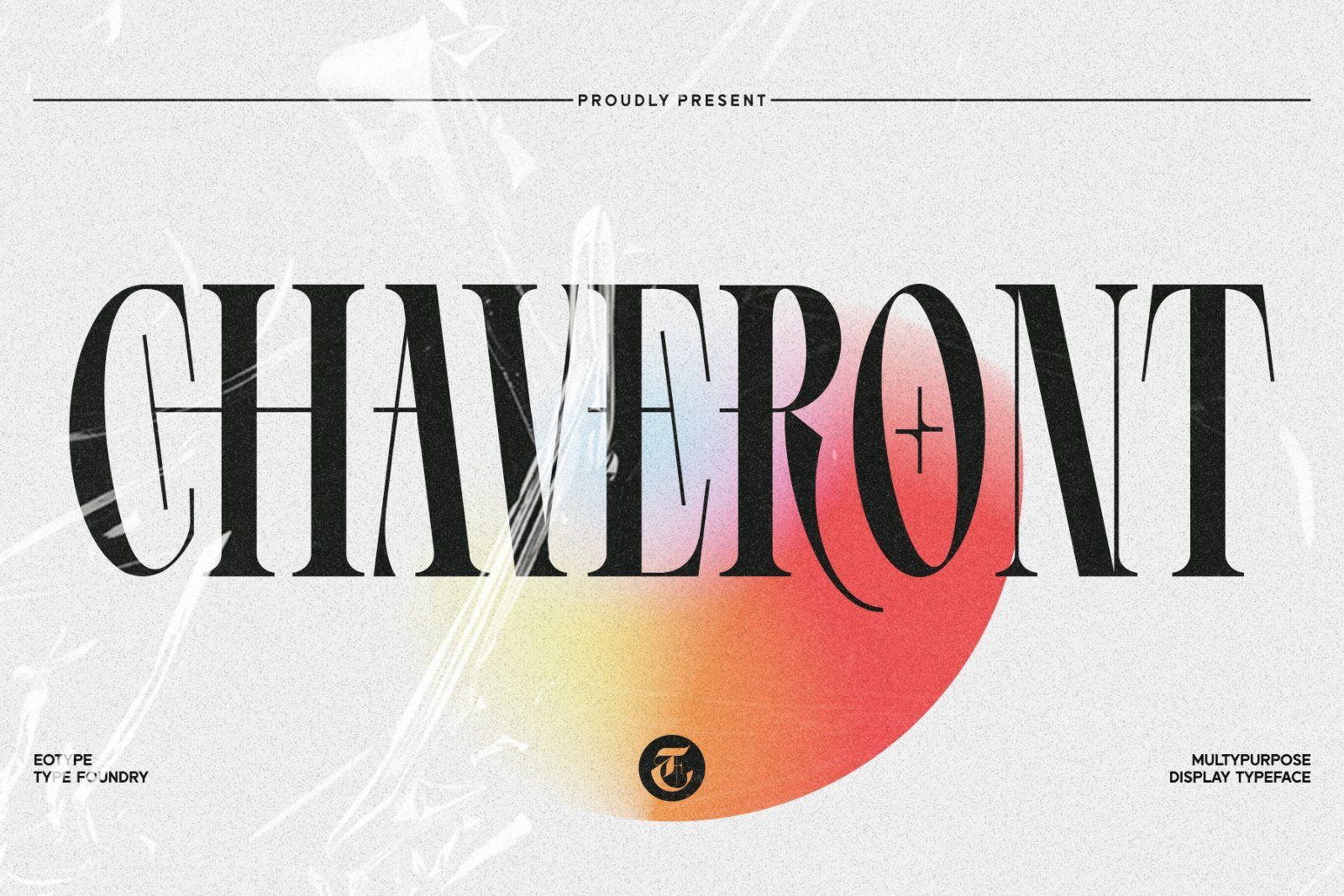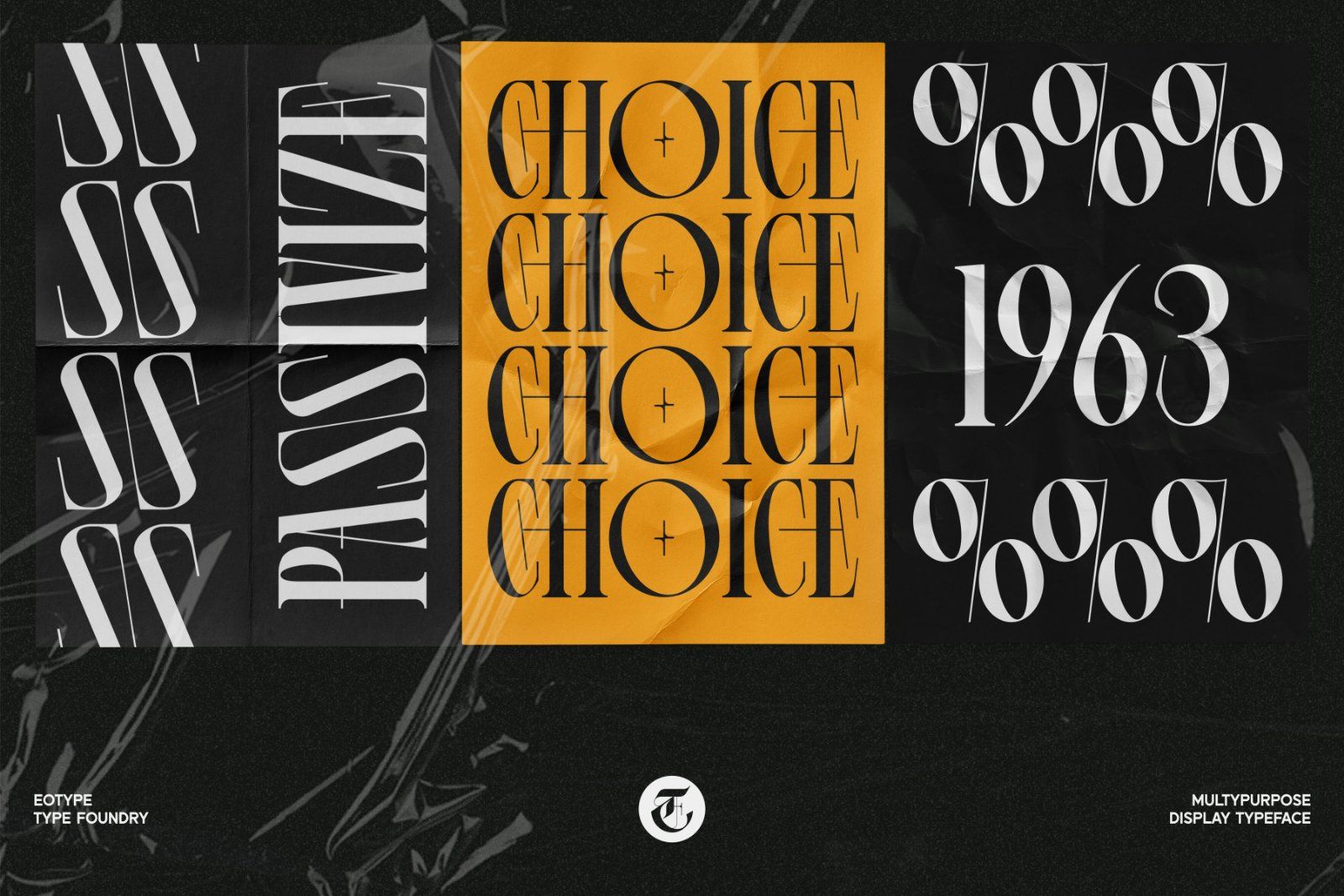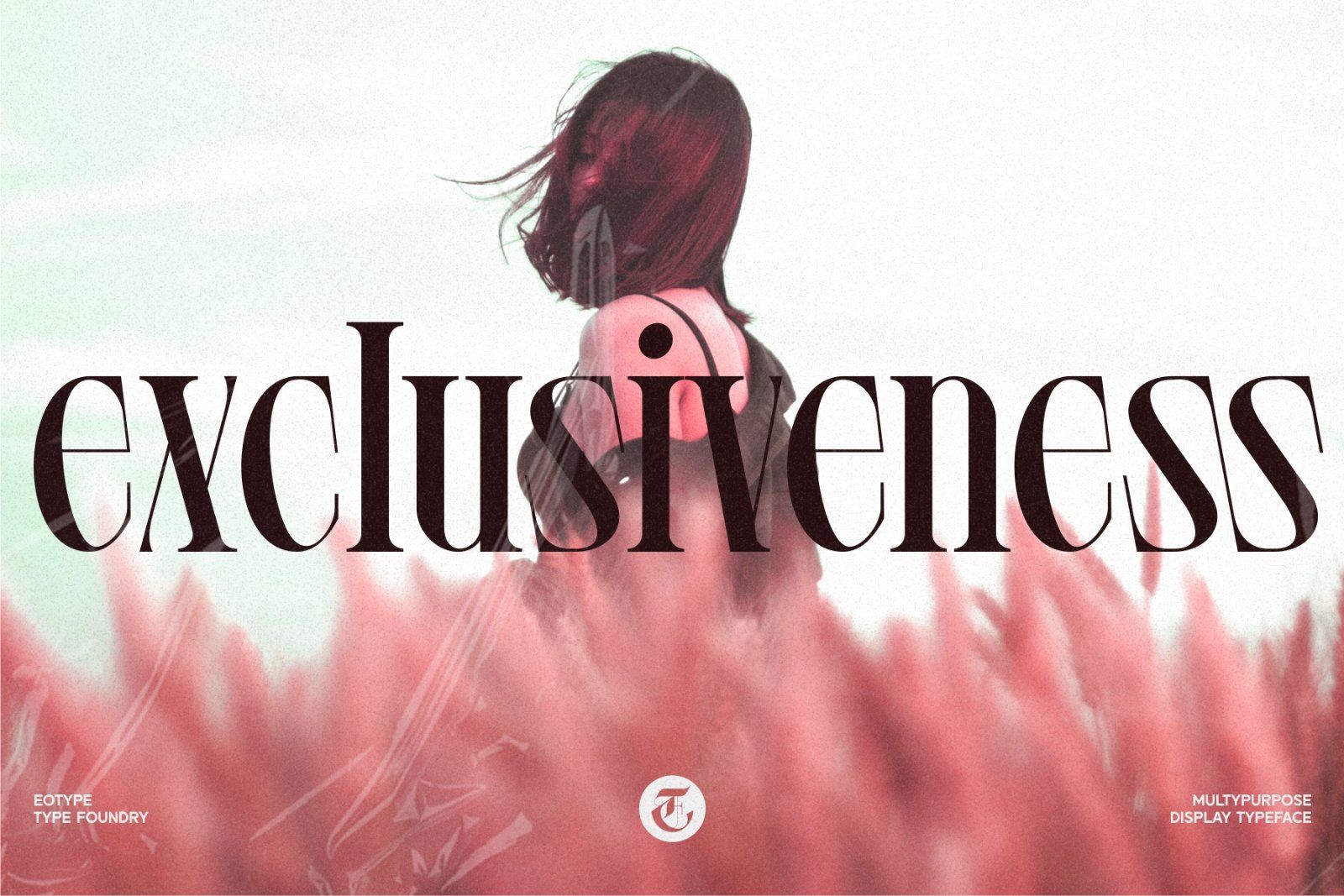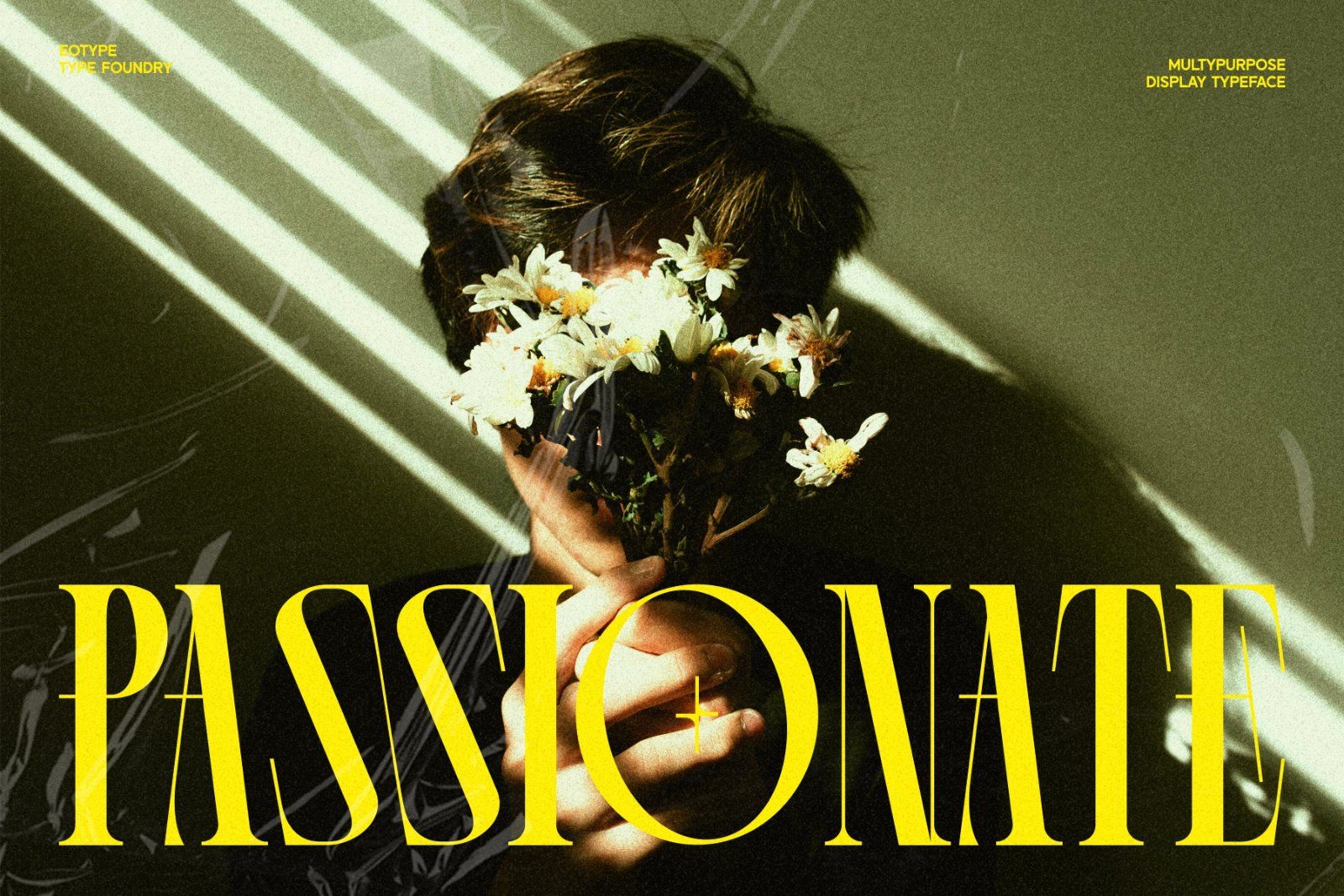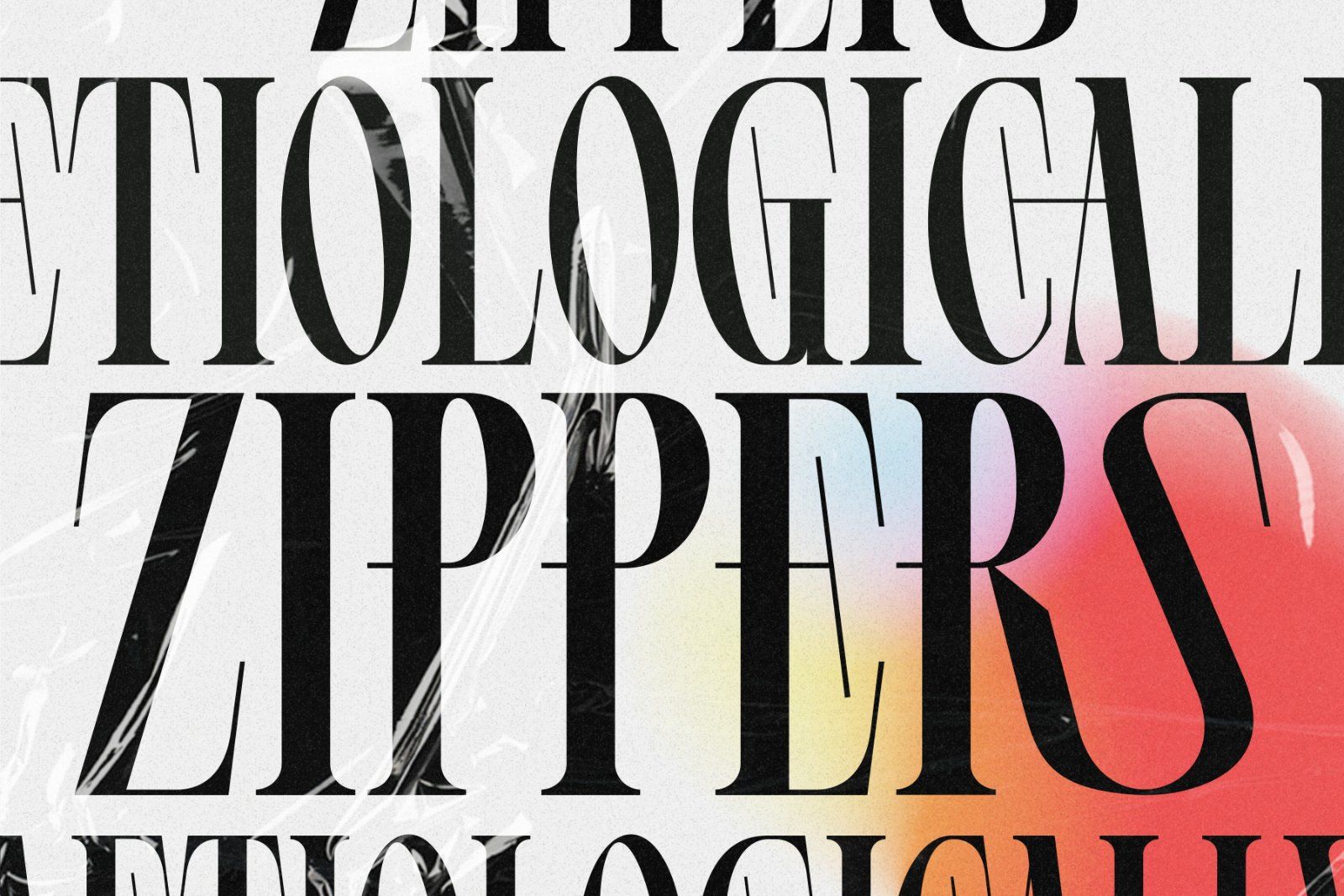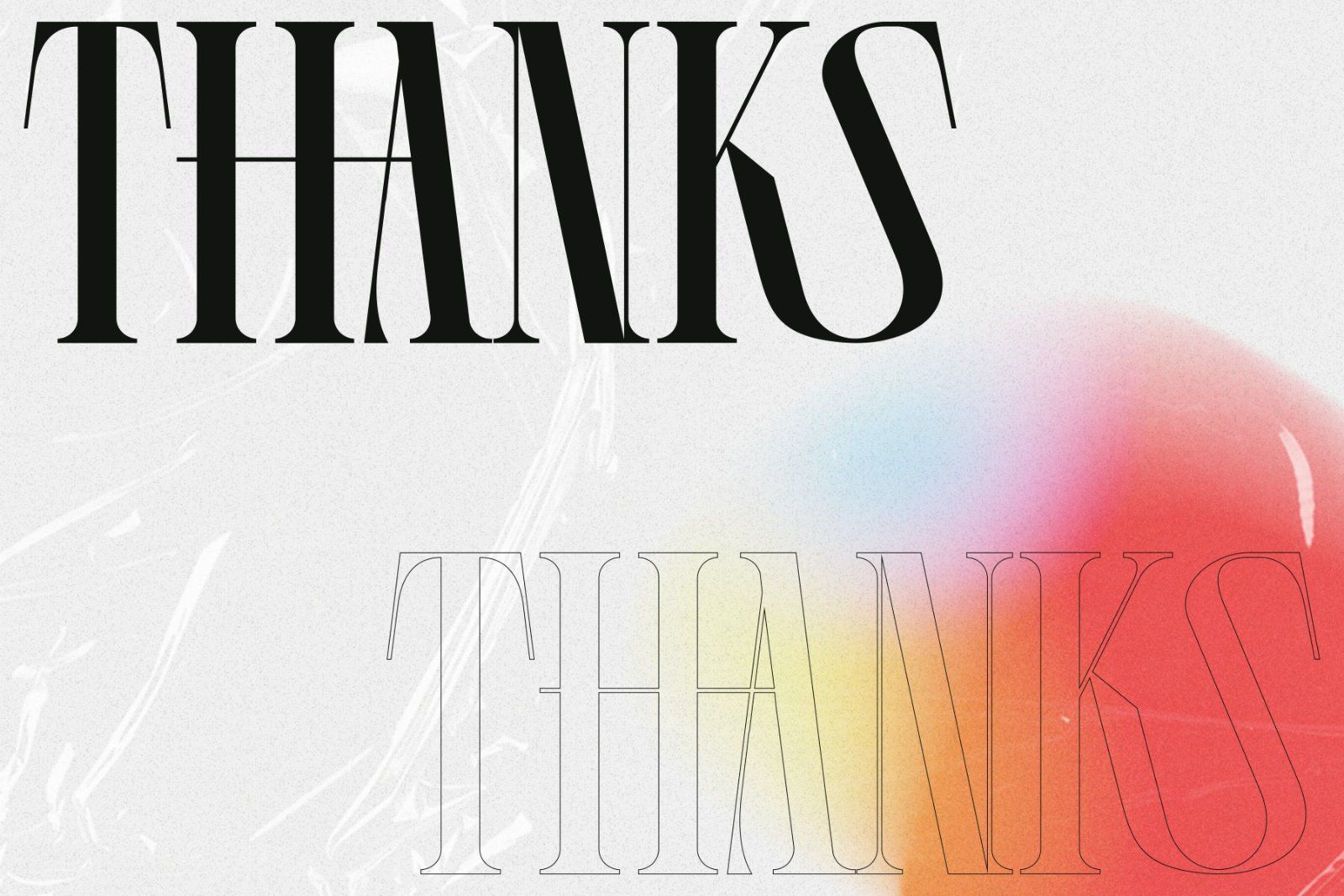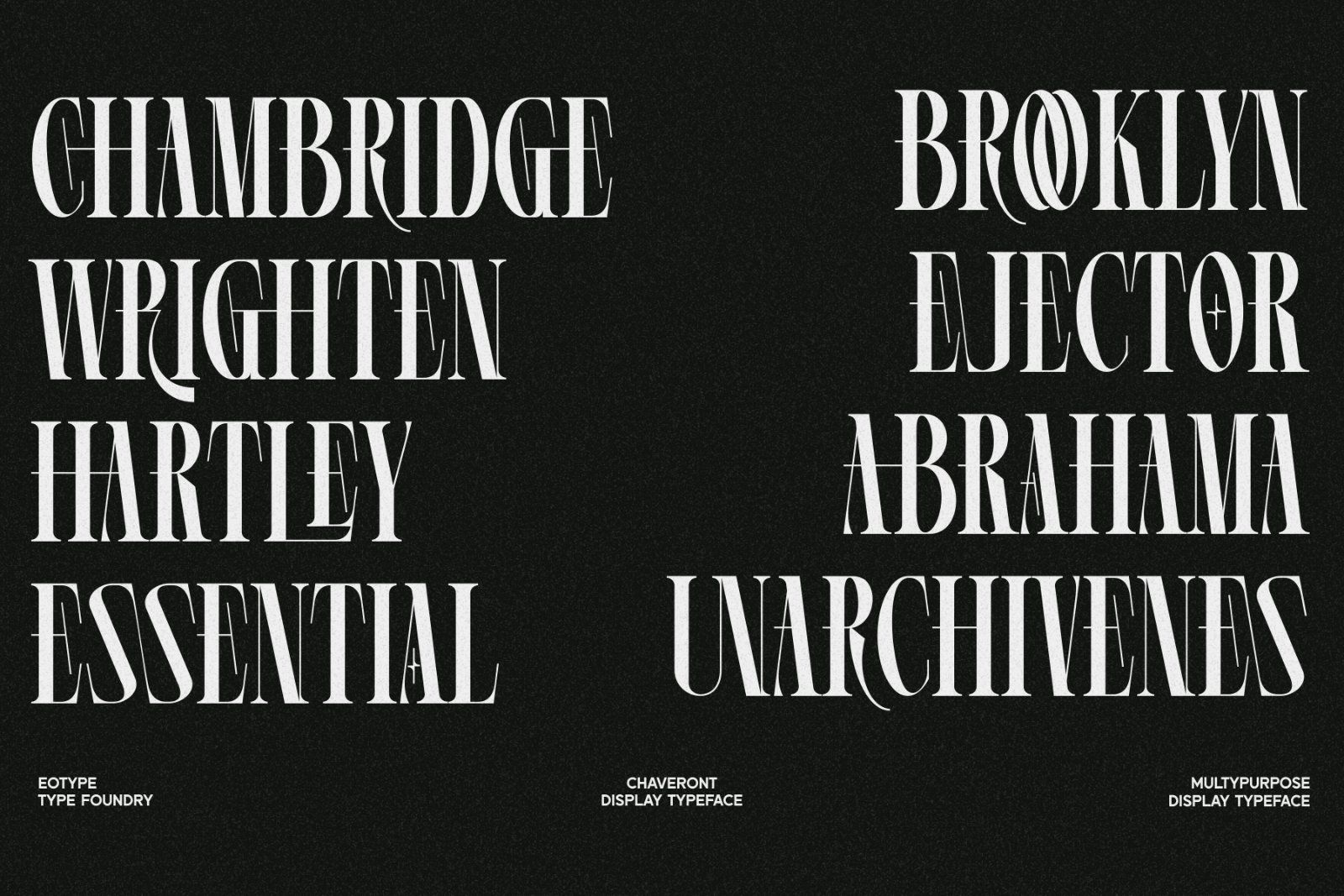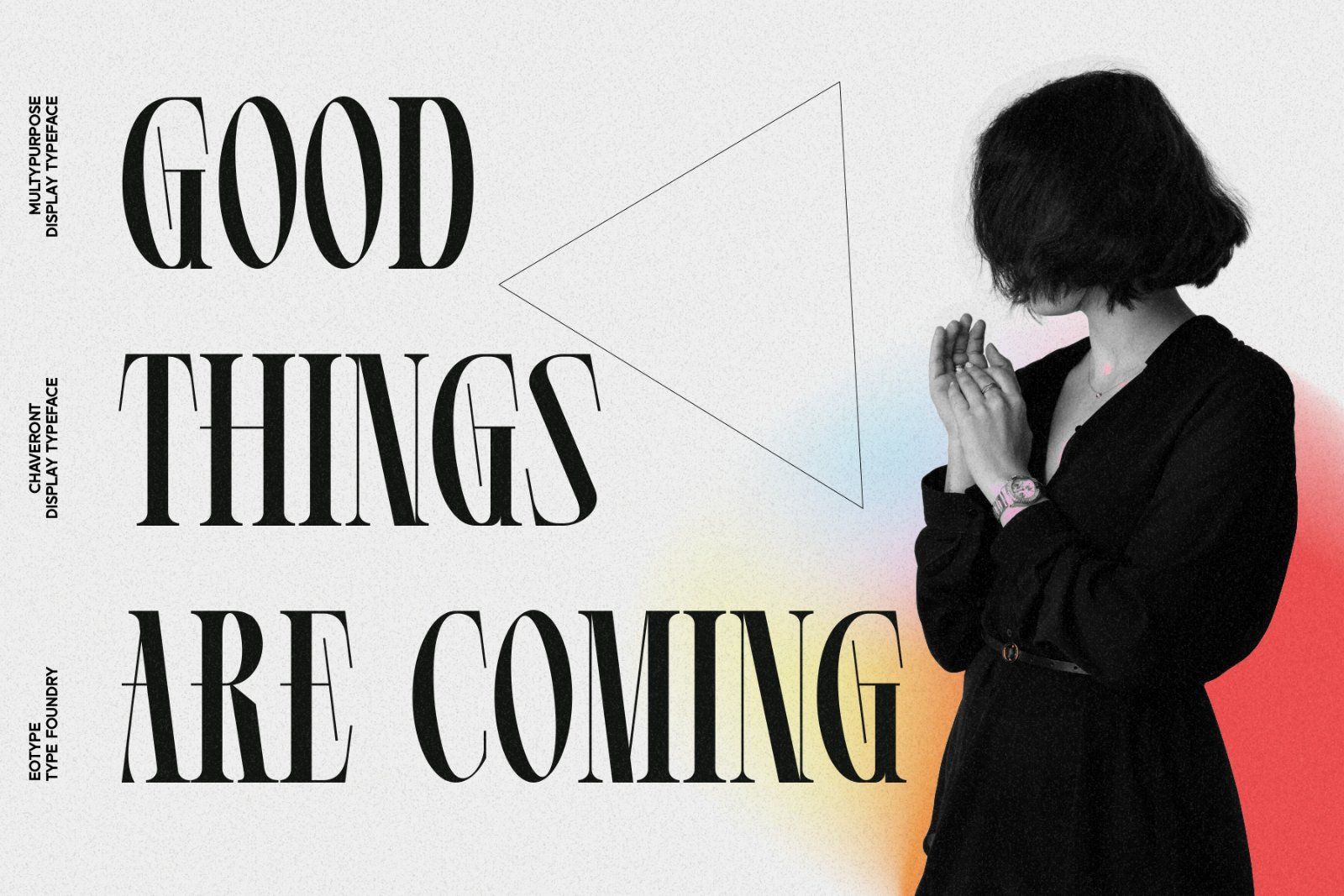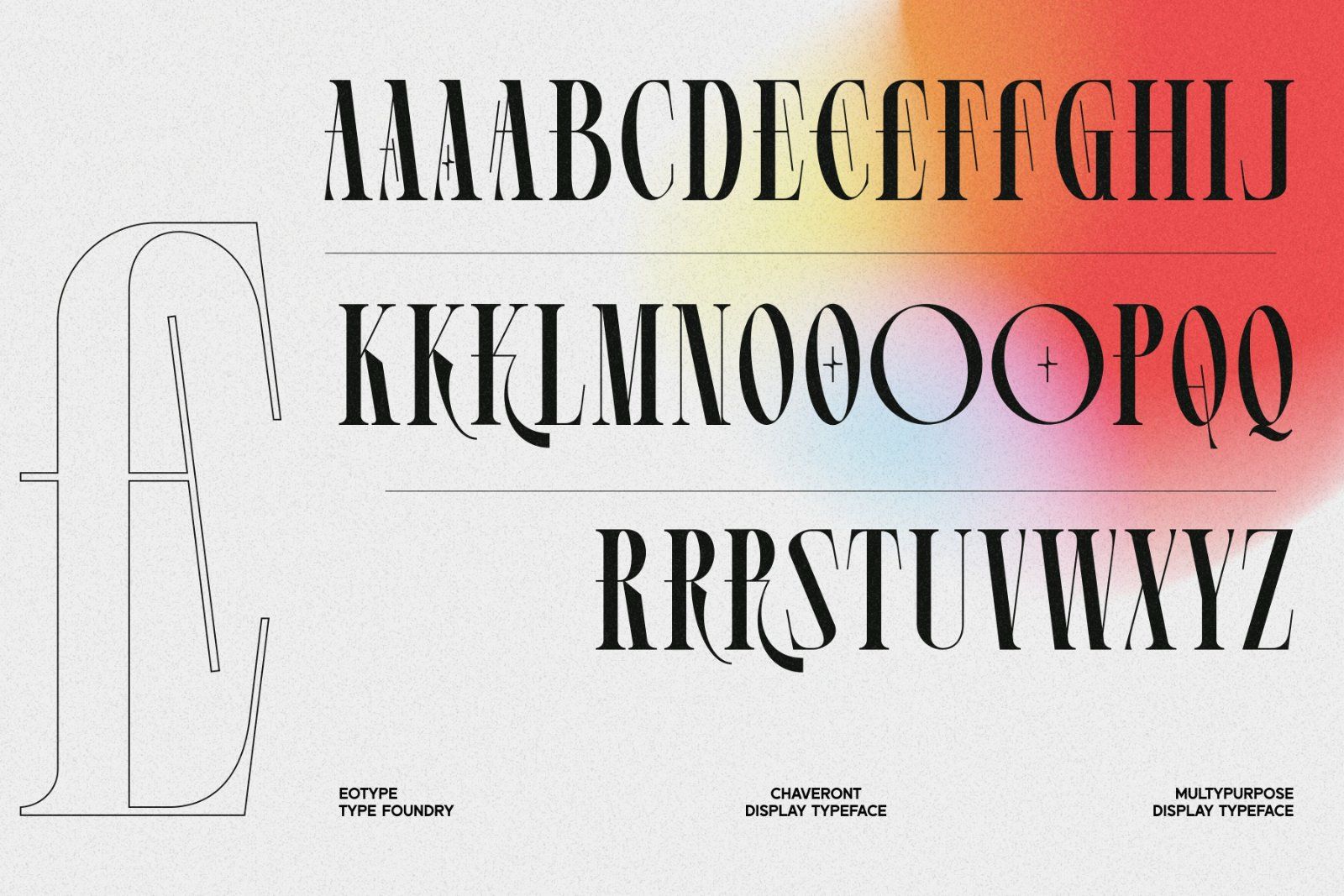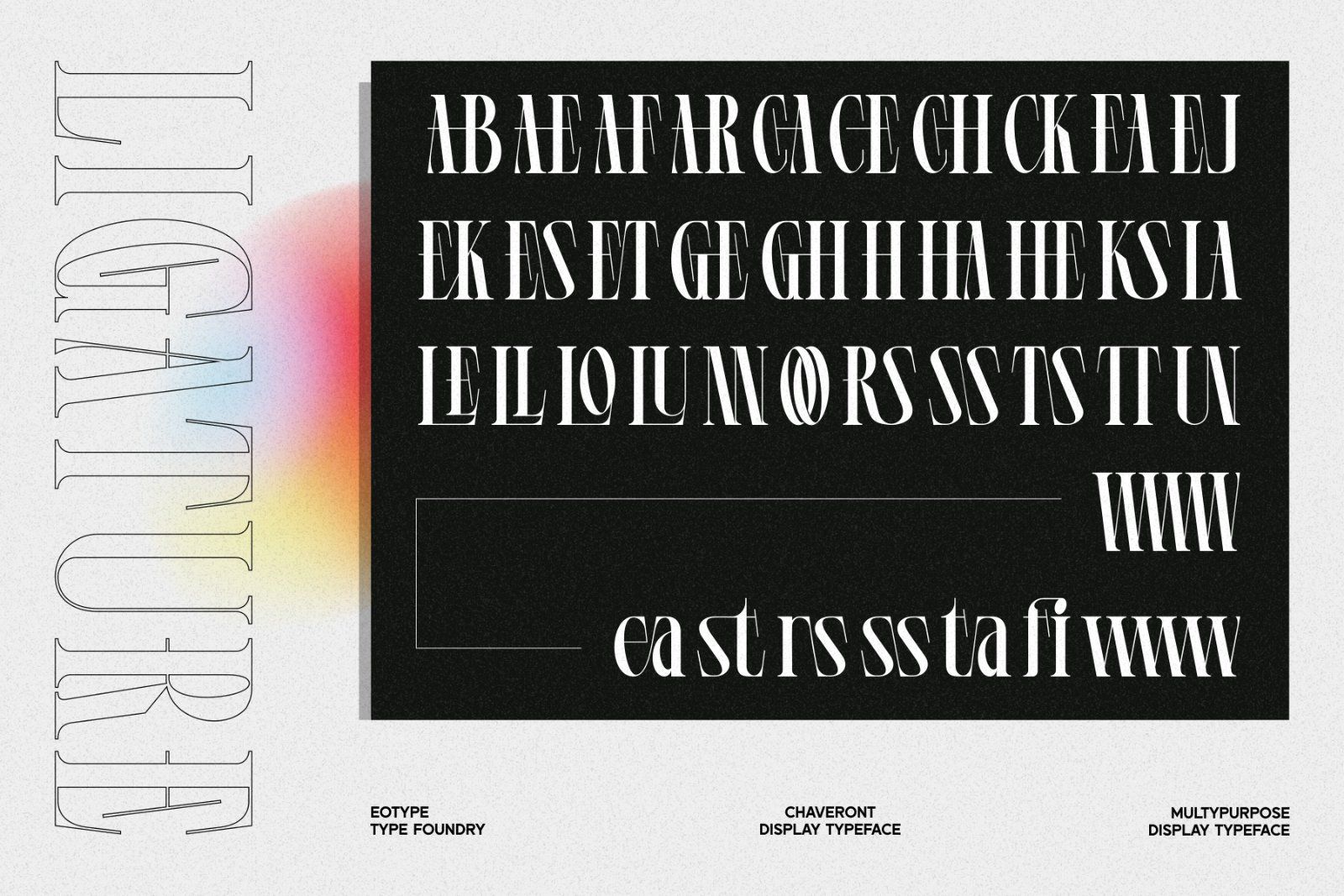
Chaveront is a new condense font that is beautiful and has a strong look. This unique font is perfect for creating beautiful logotypes, stunning magazine designs and more. This font can be your solution in completing projects that are equipped with various alternate and ligature collections.